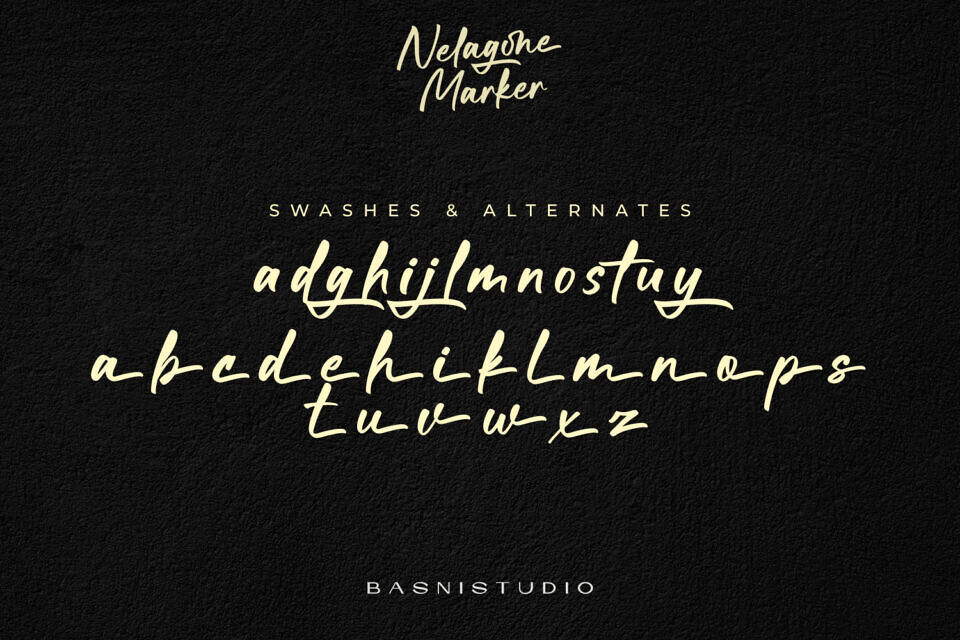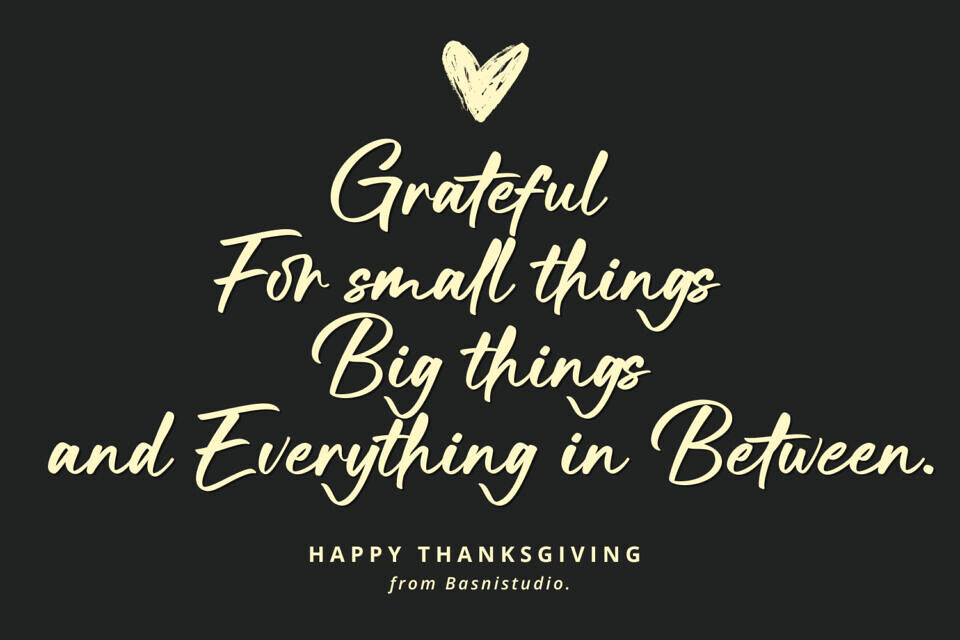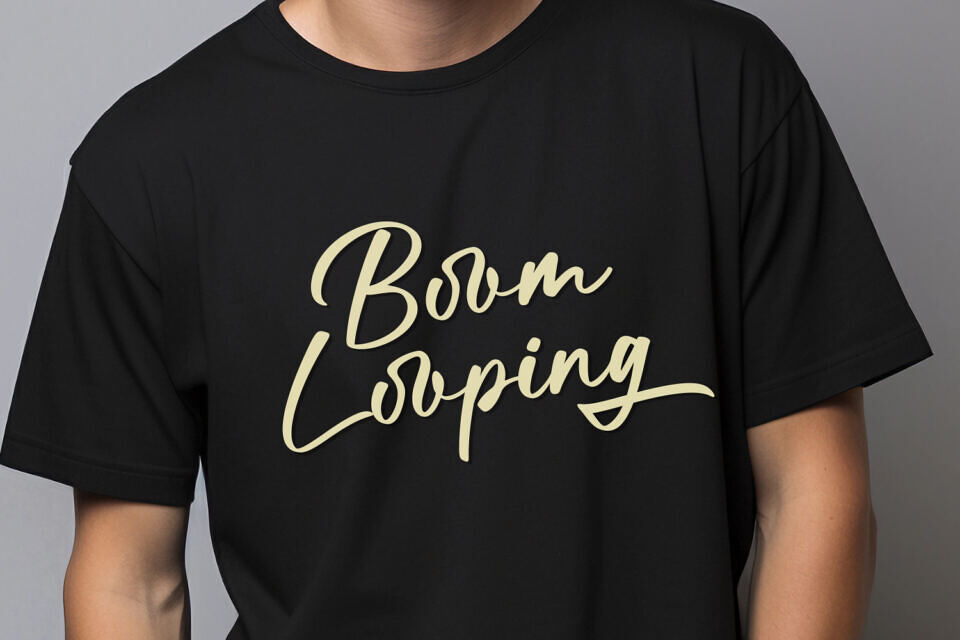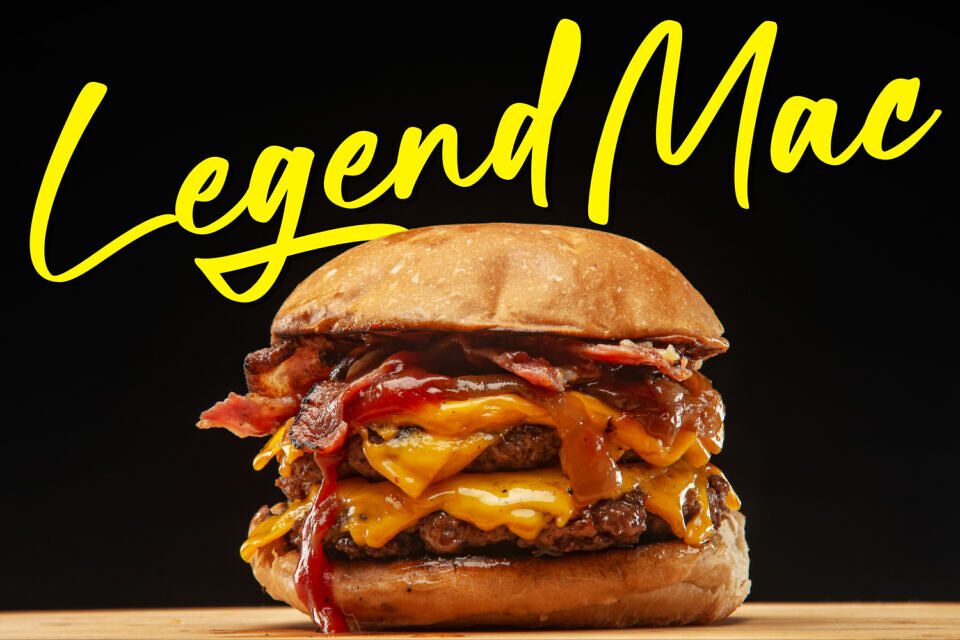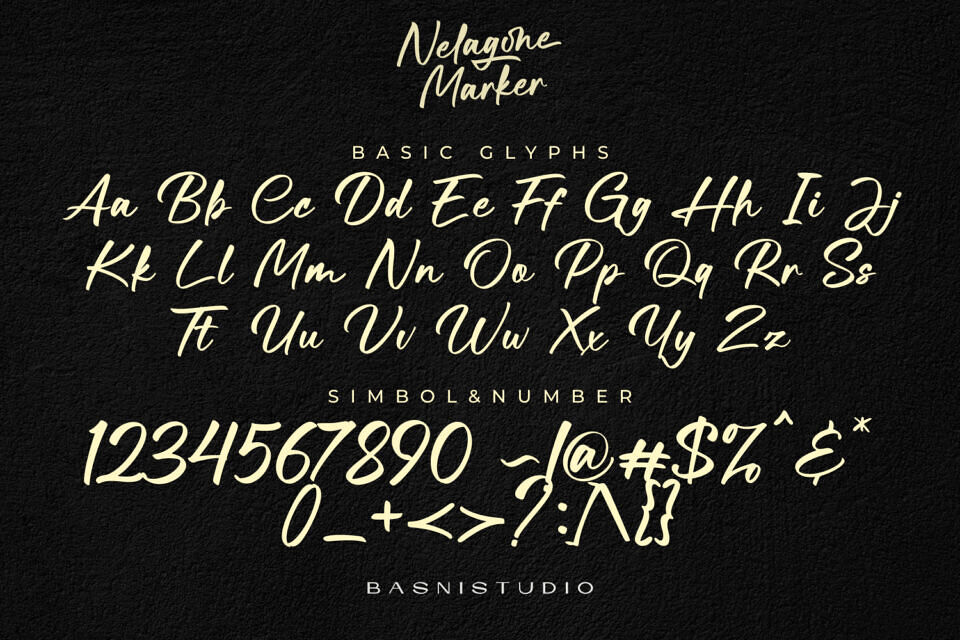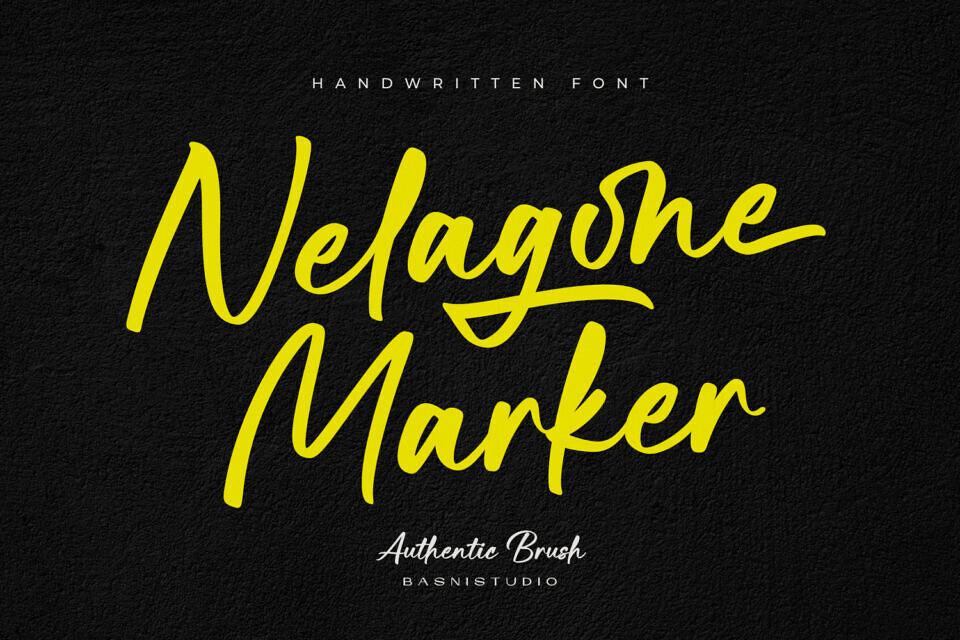
Nelagone Marker Font
Make a bold, authentic statement with Nelagone Marker, a high-energy brush font that screams creativity and street-style grit. This Nelagone Marker typeface features thick, aggressive strokes and a natural ink-to-paper texture that feels like it was just hand-drawn with a fresh marker.
It is a powerhouse for sports branding, concert posters, and edgy streetwear designs that need to stand out. The raw energy of the Nelagone Marker font brings a sense of urgency and authentic artistry to your headlines.